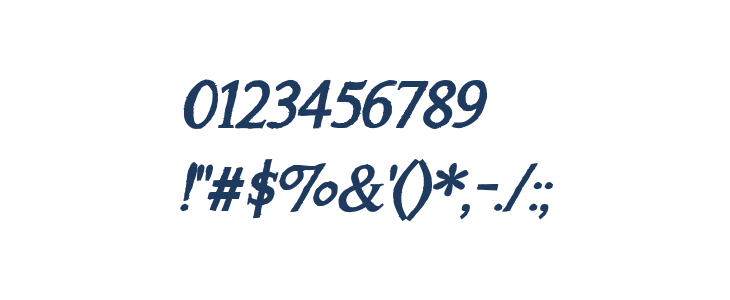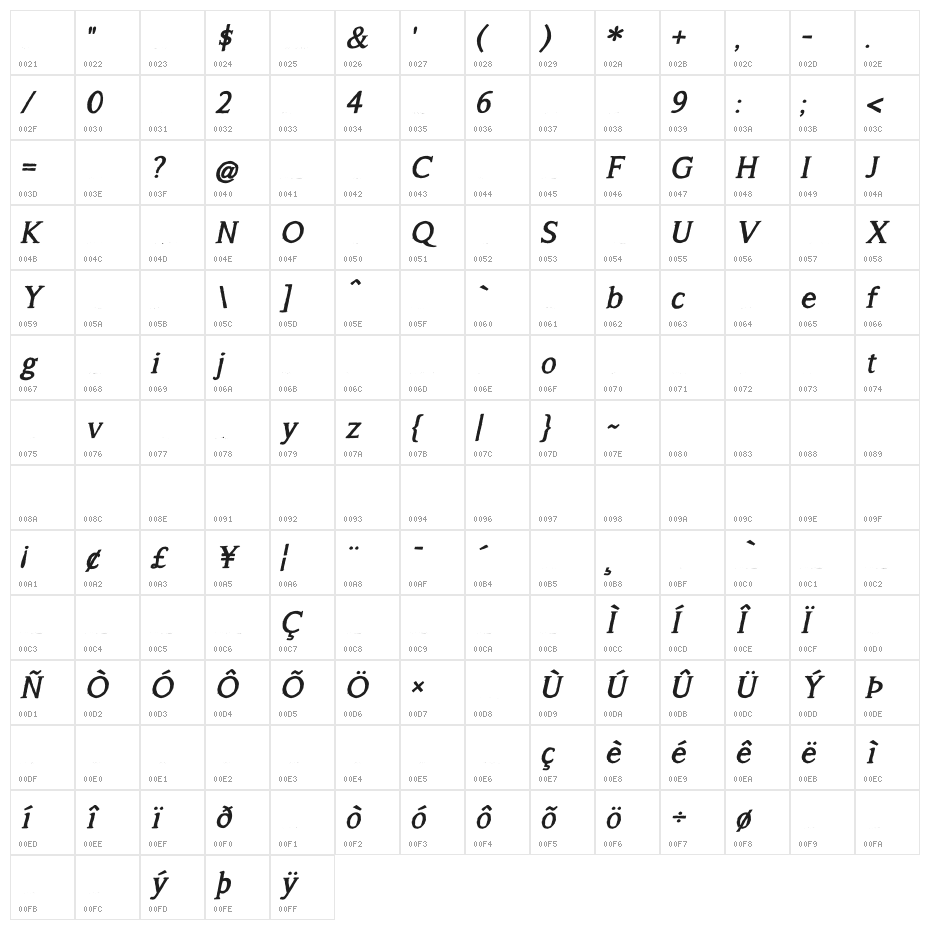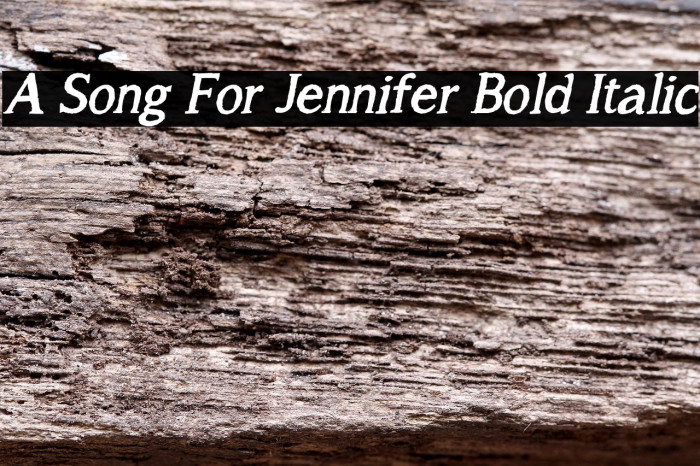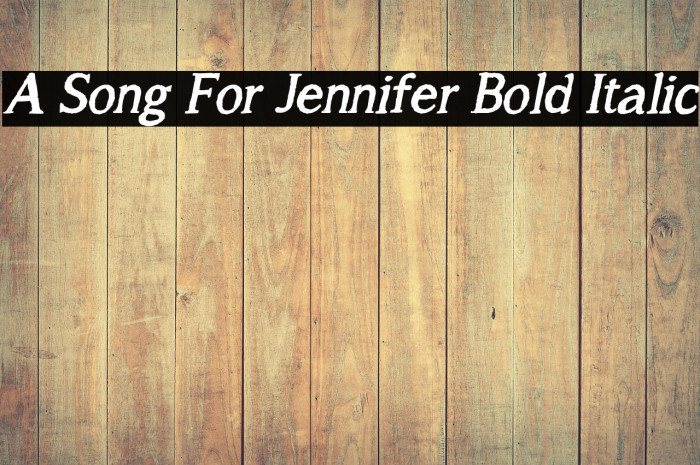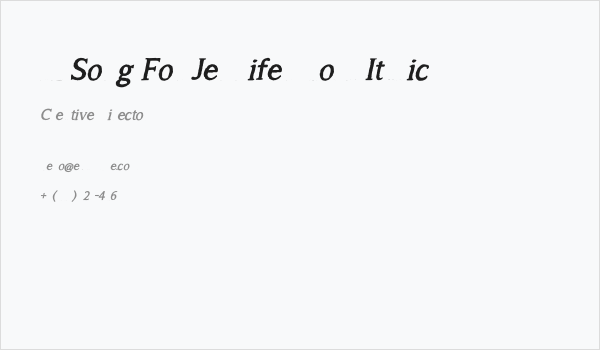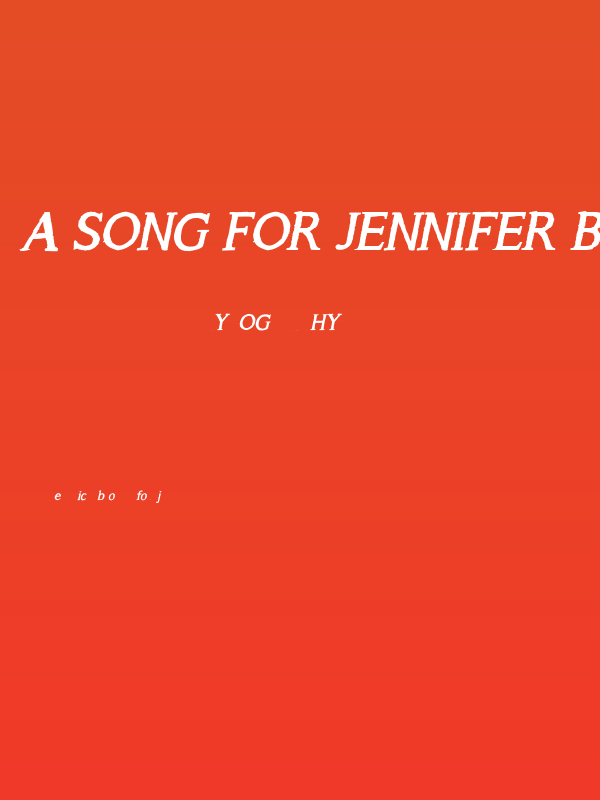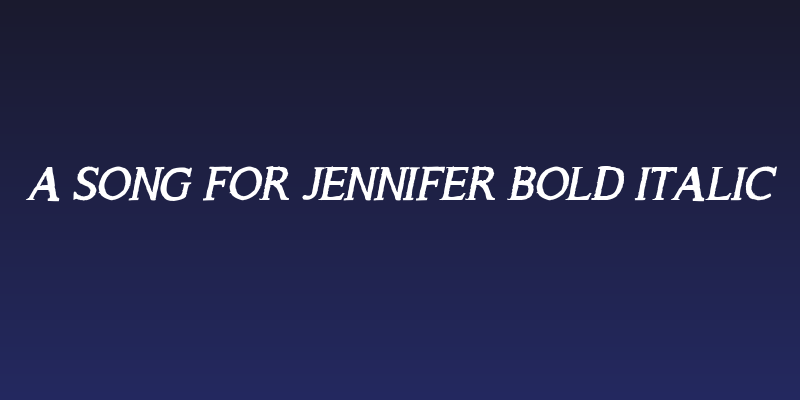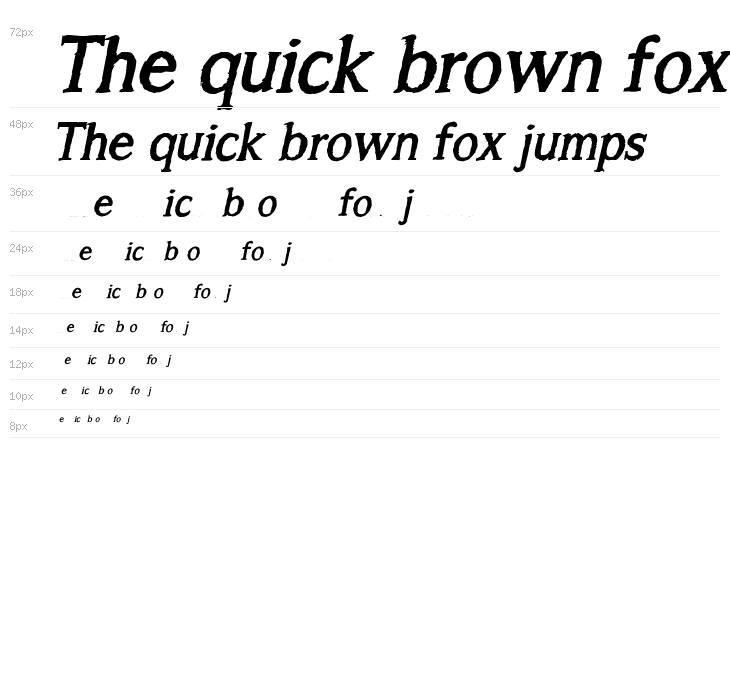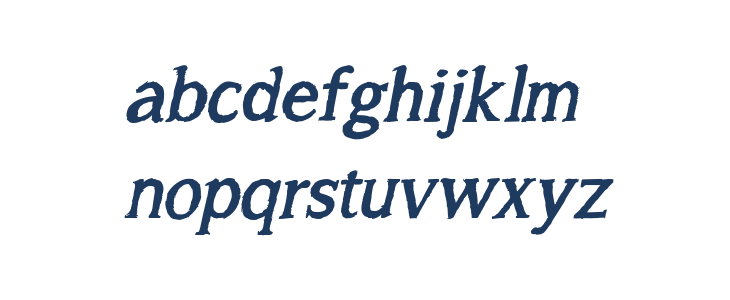
A Song For Jennifer Bold Italic Font
A Song For Jennifer Bold Italic Description
This font features a bold and italic style, combining a strong presence with a dynamic slant. The characters are well-defined with a slight serif, giving them a classic yet modern appeal. The uppercase letters are tall and commanding, while the lowercase letters maintain a consistent flow, enhancing readability. Numbers are clear and distinct, making them suitable for various applications. Special characters are elegantly integrated, maintaining the overall aesthetic of the font. The boldness of the font ensures it stands out, while the italicization adds a sense of movement and sophistication.
| Use Case | Headlines, Logos, Book covers |
| Proposed Projects | Ideal for book covers, branding, headlines, and elegant invitations. |